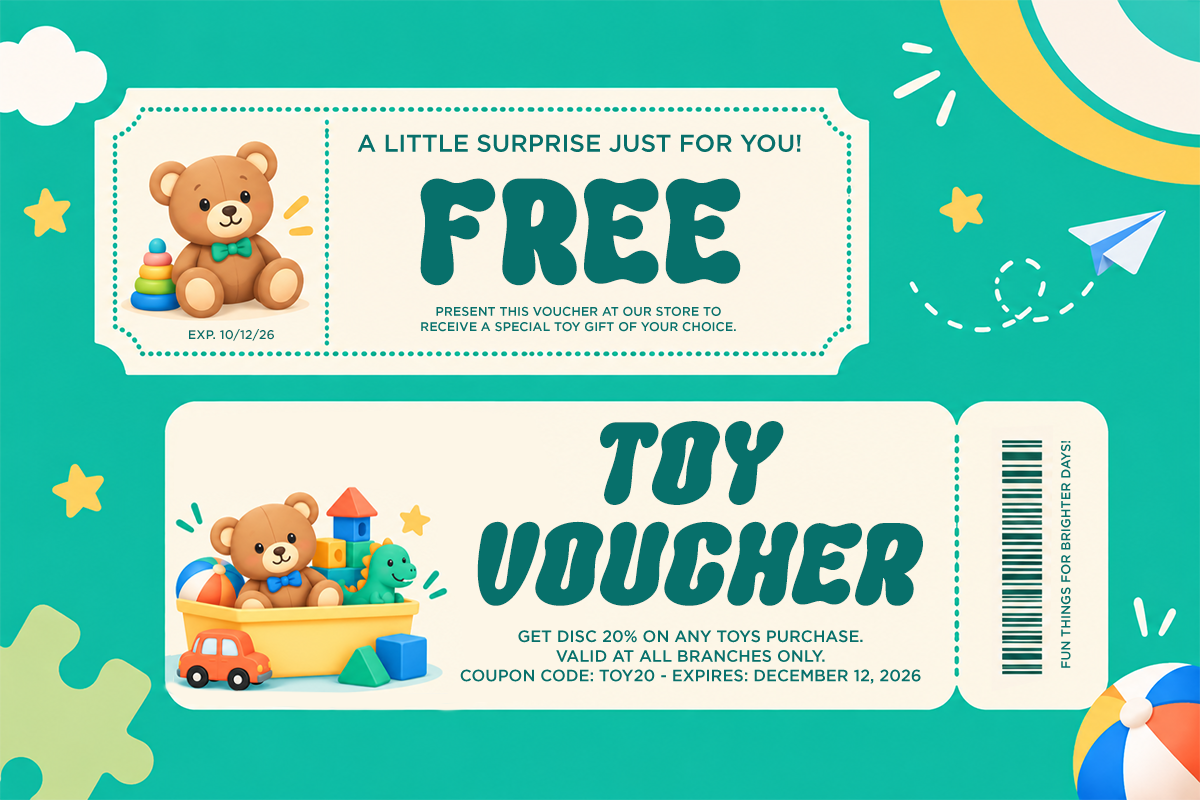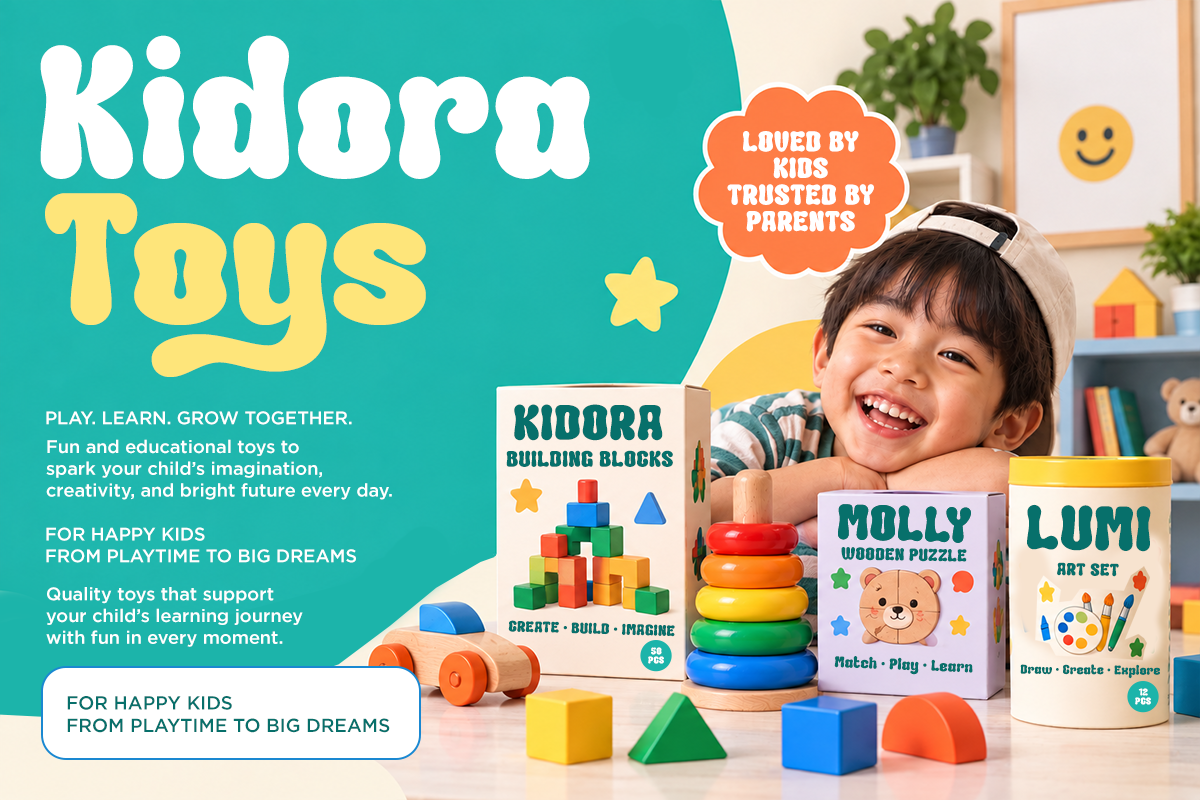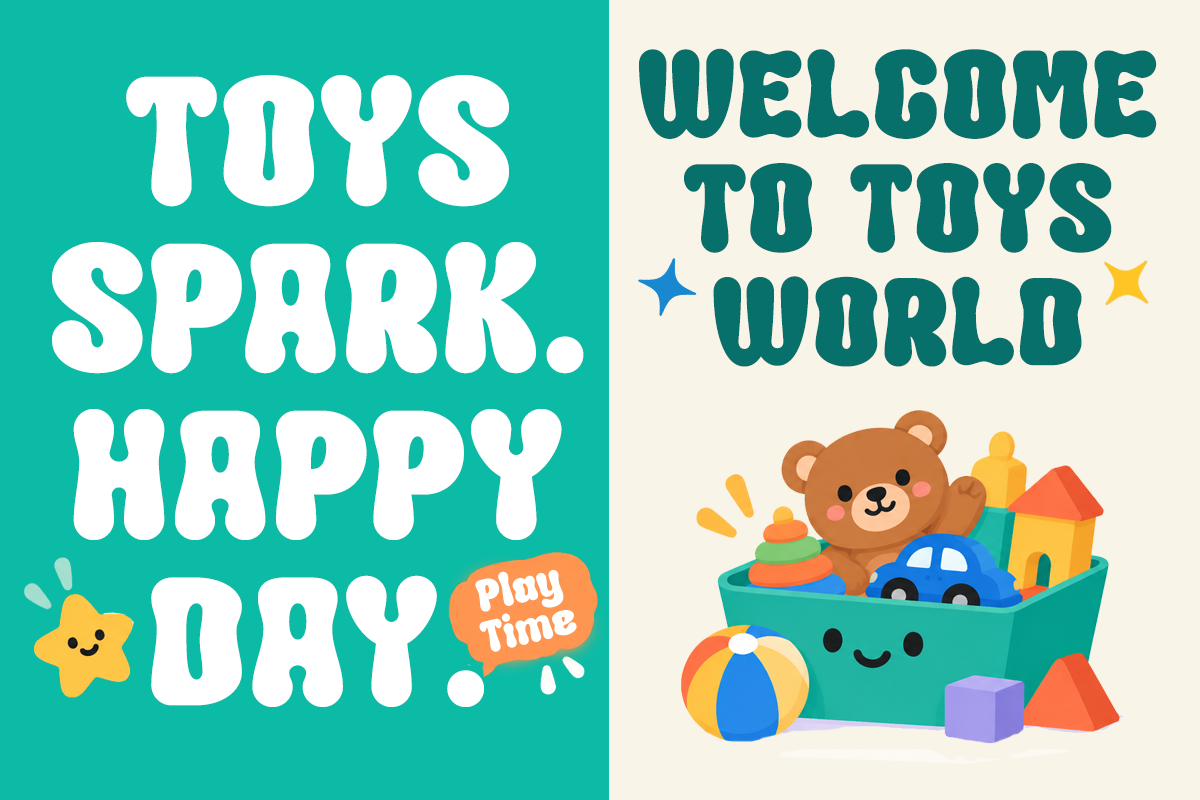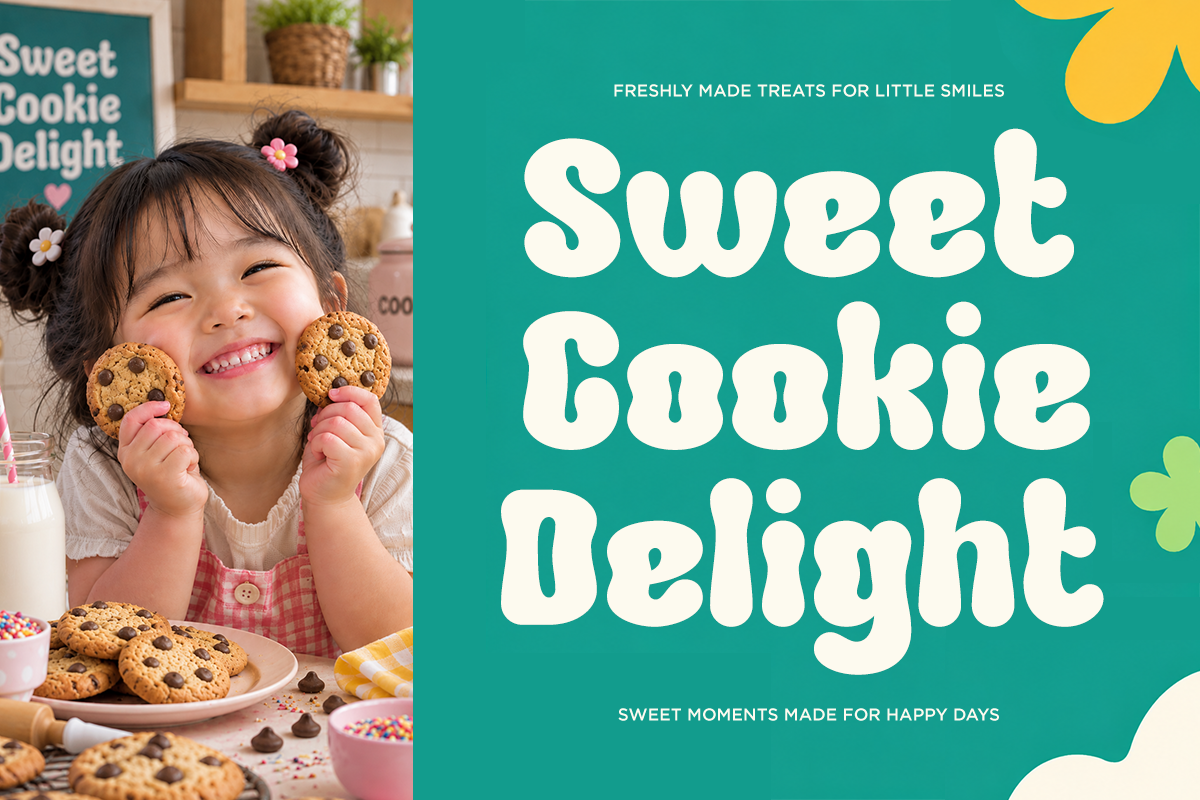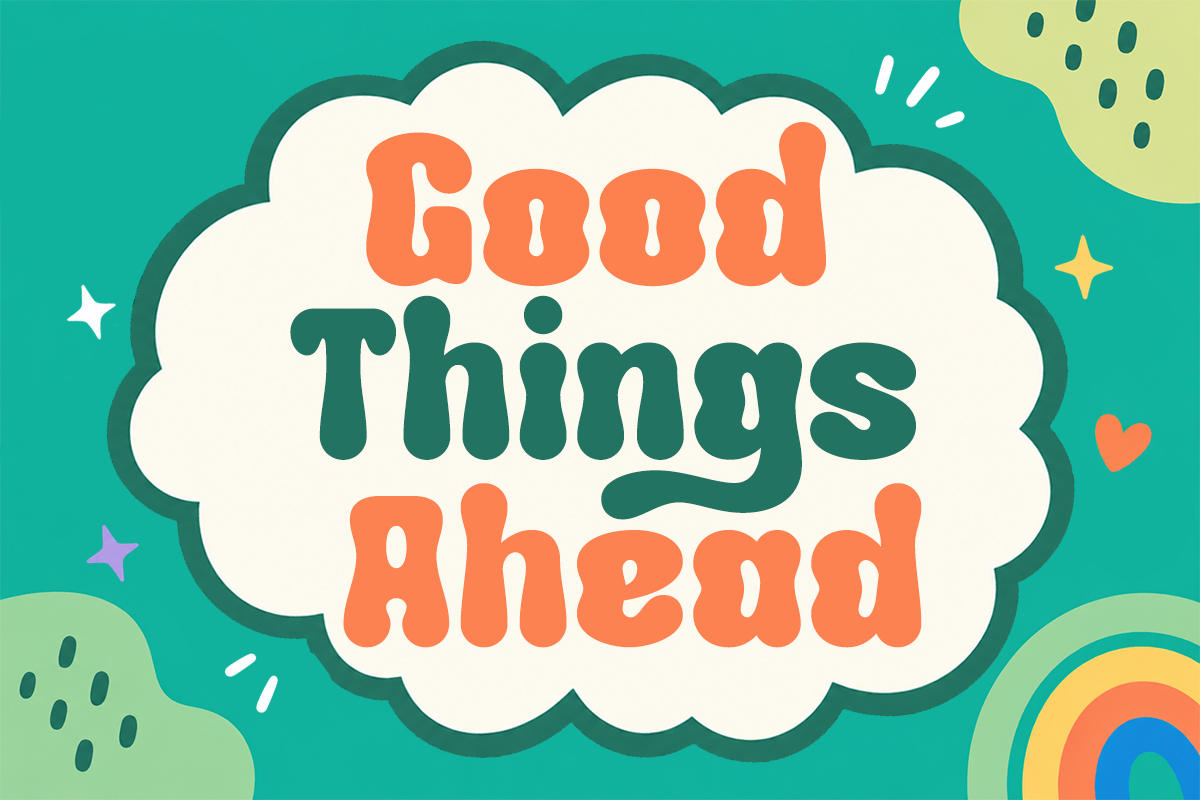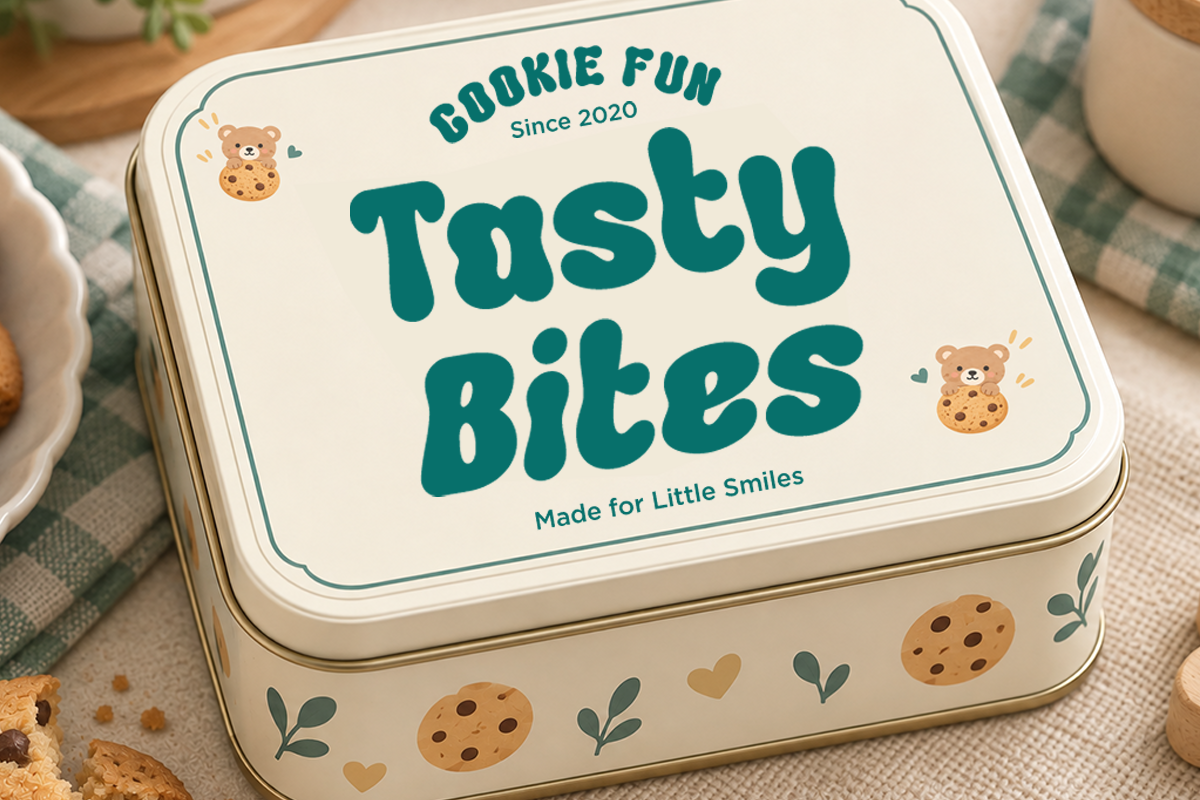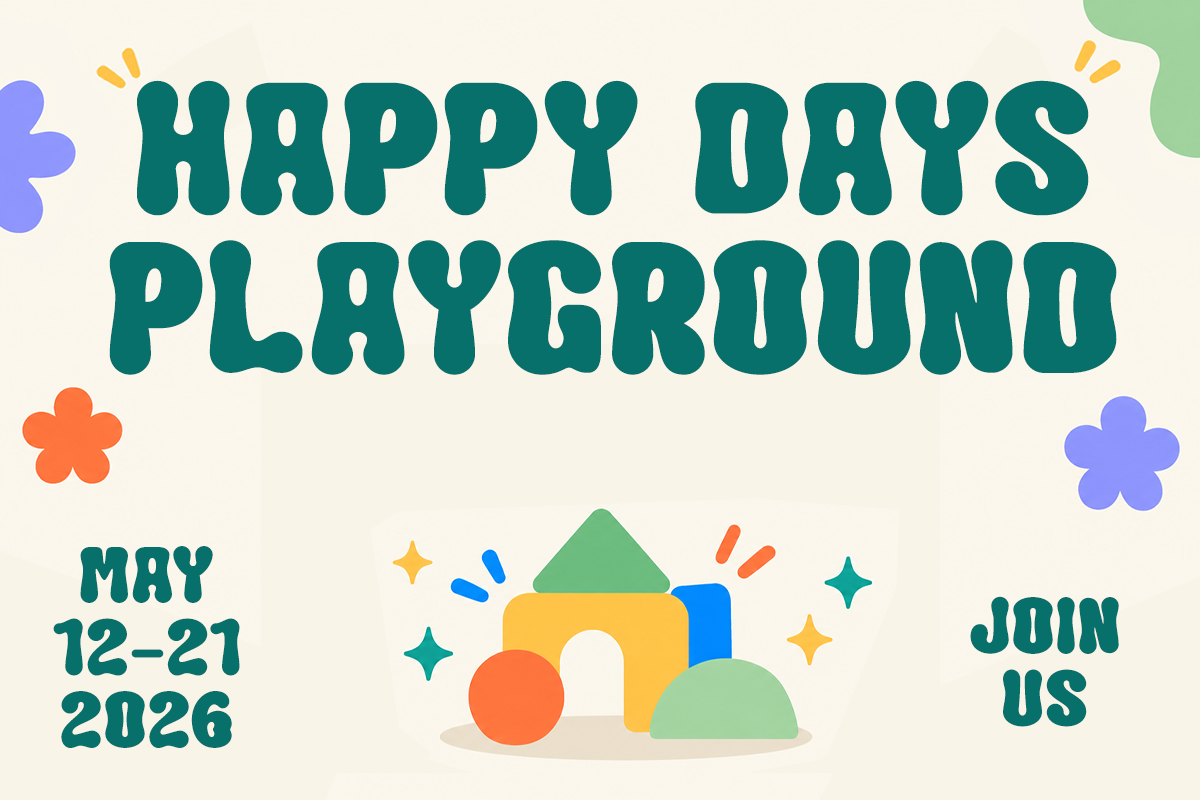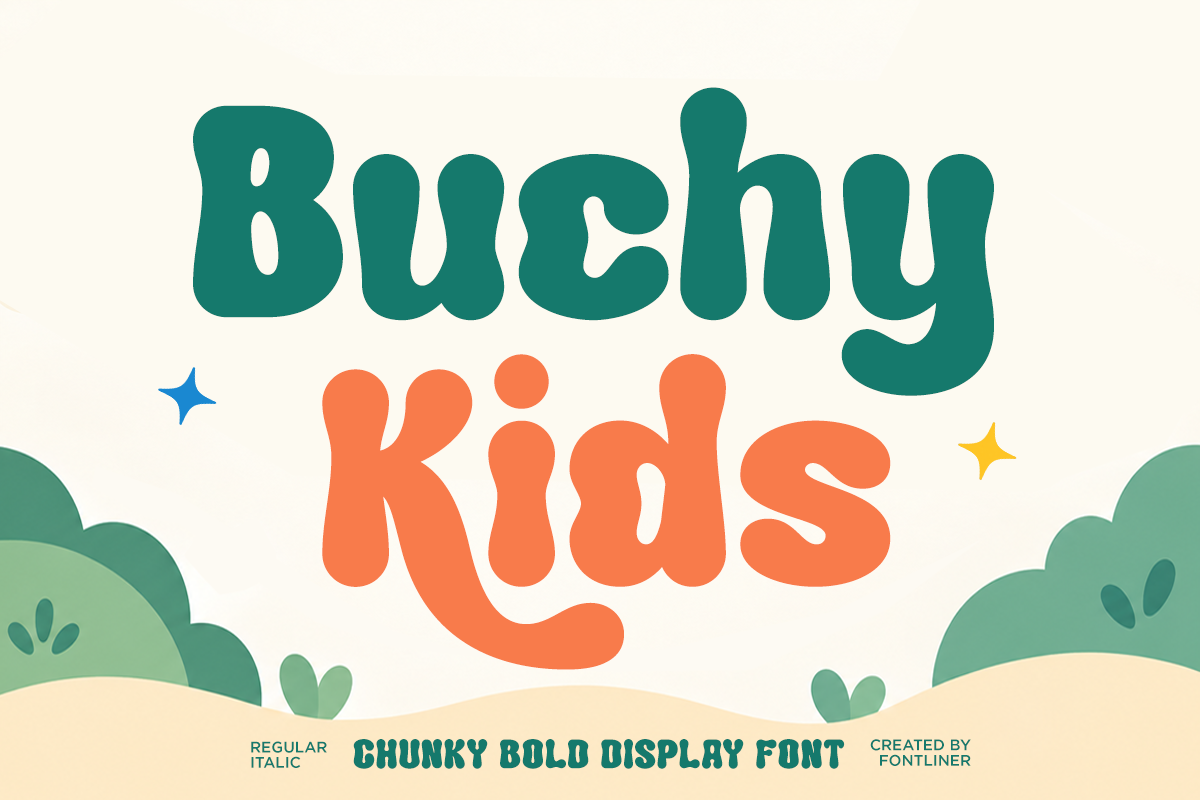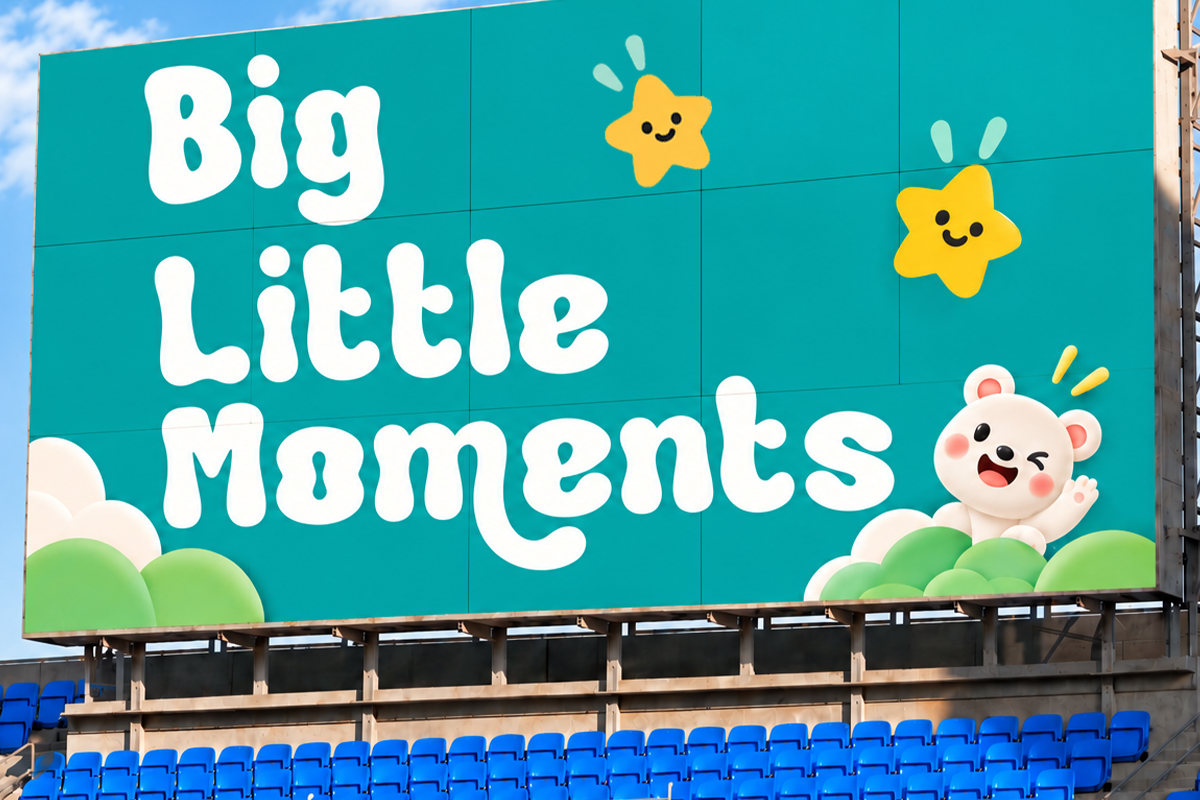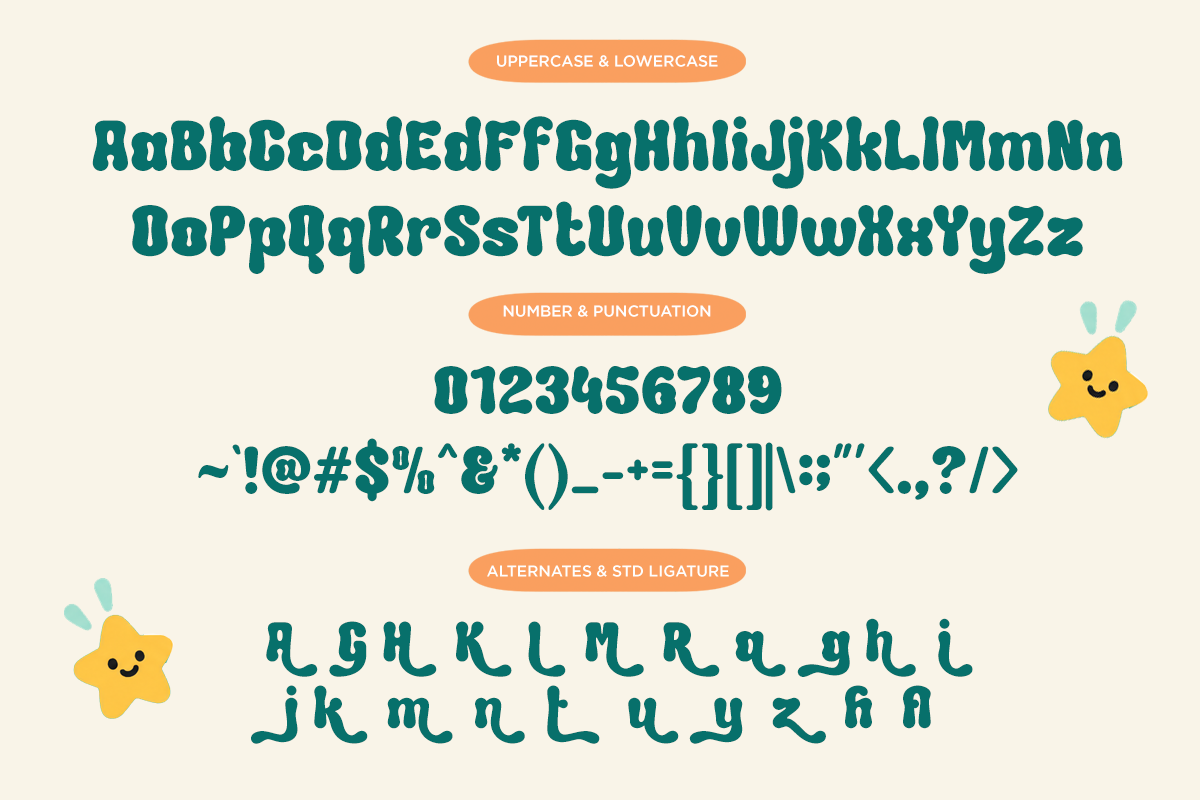
Buchy Kids - Playful Groovy Font
Buchy Kids is a fun and playful chunky display font designed to bring a cheerful, friendly, and energetic personality to your creative projects. Its rounded, bold, and bubbly letterforms create a warm visual style that instantly feels playful and approachable.
Perfect for kids branding, toy packaging, children’s books, posters, playground graphics, food packaging, bakery branding, stickers, invitations, apparel, logos, and social media designs. The bold display style is highly visible and works especially well for eye-catching headlines and short phrases.
Bring a joyful and colorful touch to your designs with Buchy Kids — a friendly display font made for happy moments, little adventures, playful brands, and creative projects for all ages.
Regular and Italic
Special Alternates
Number, Symbol, and Punctuation